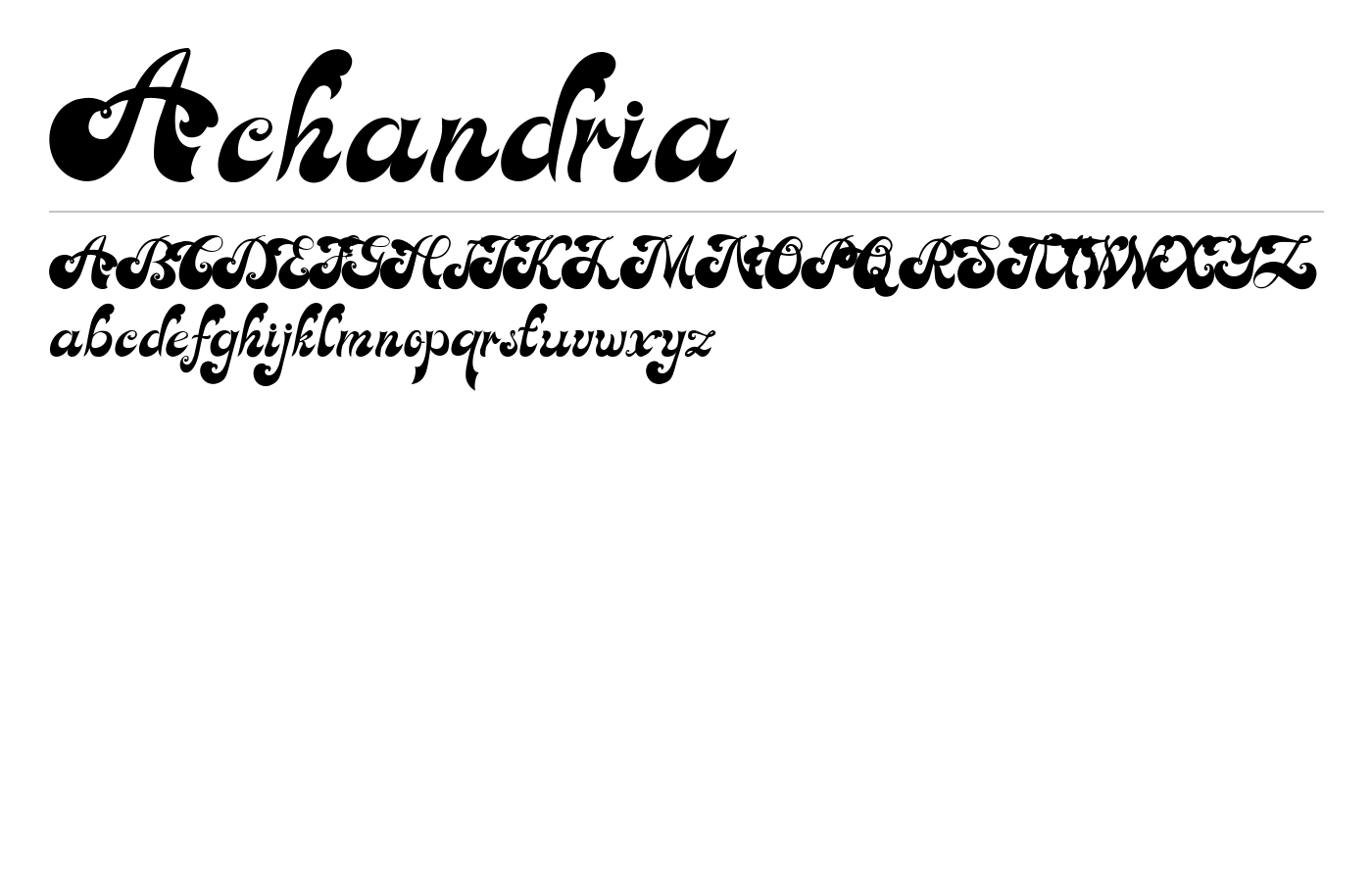
Achandria is a bold, decorative script font with thick, dramatic strokes and intricate swashes that give it a highly ornamental feel. Its high contrast and playful curves make it ideal for eye-catching logos, branding, and display use where a vintage, artistic, and expressive style is desired. This font works best in creative projects that need a strong, elegant personality with a touch of flamboyance.
Achandria Font